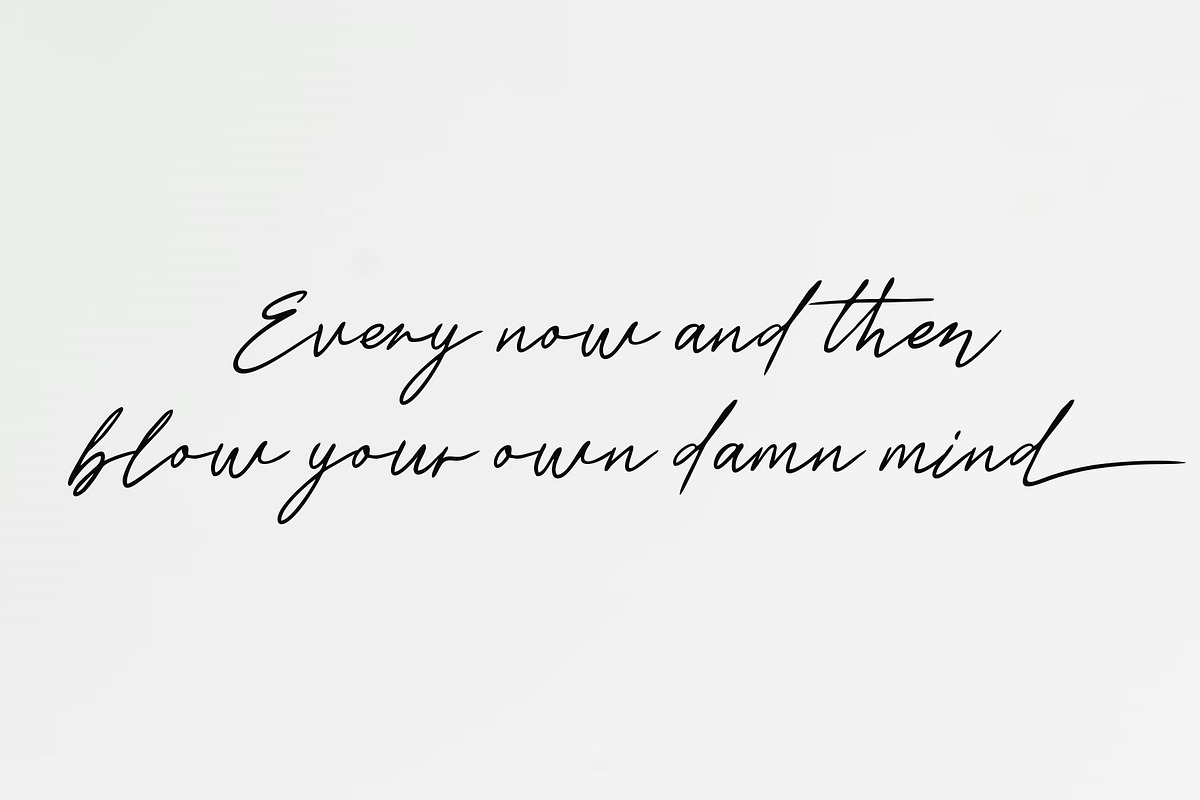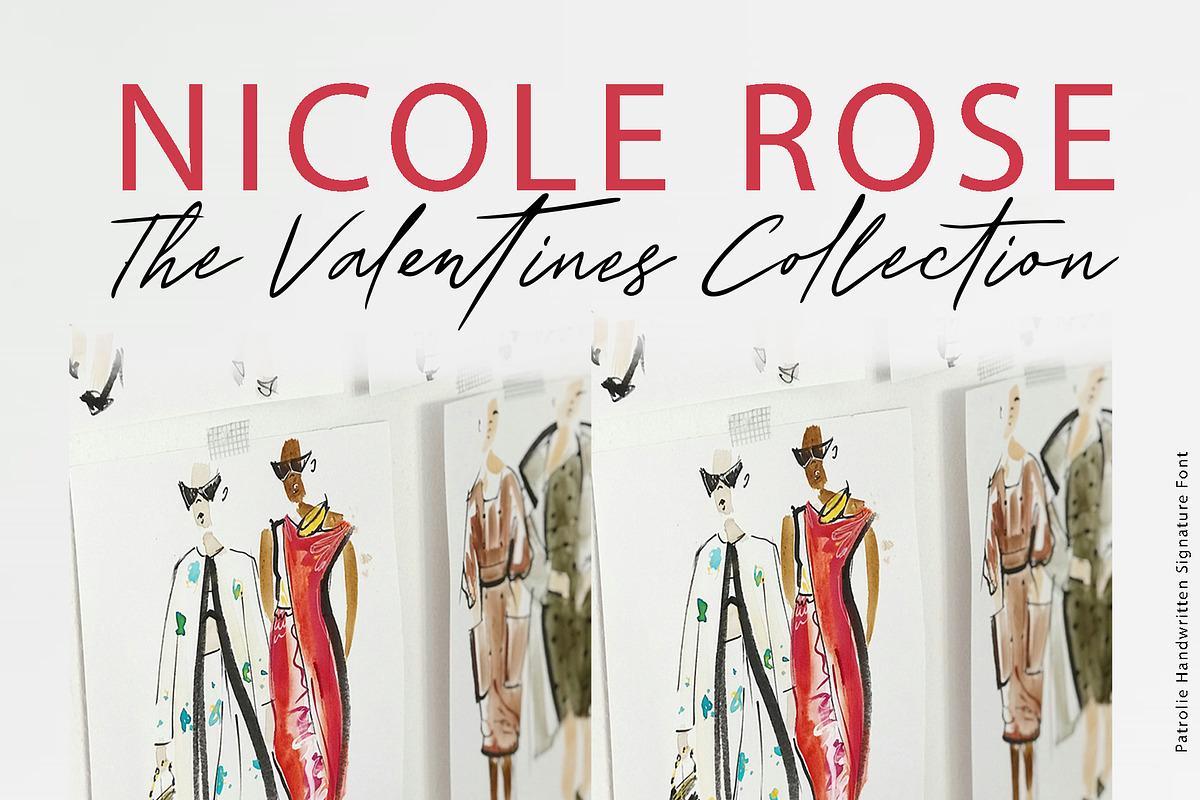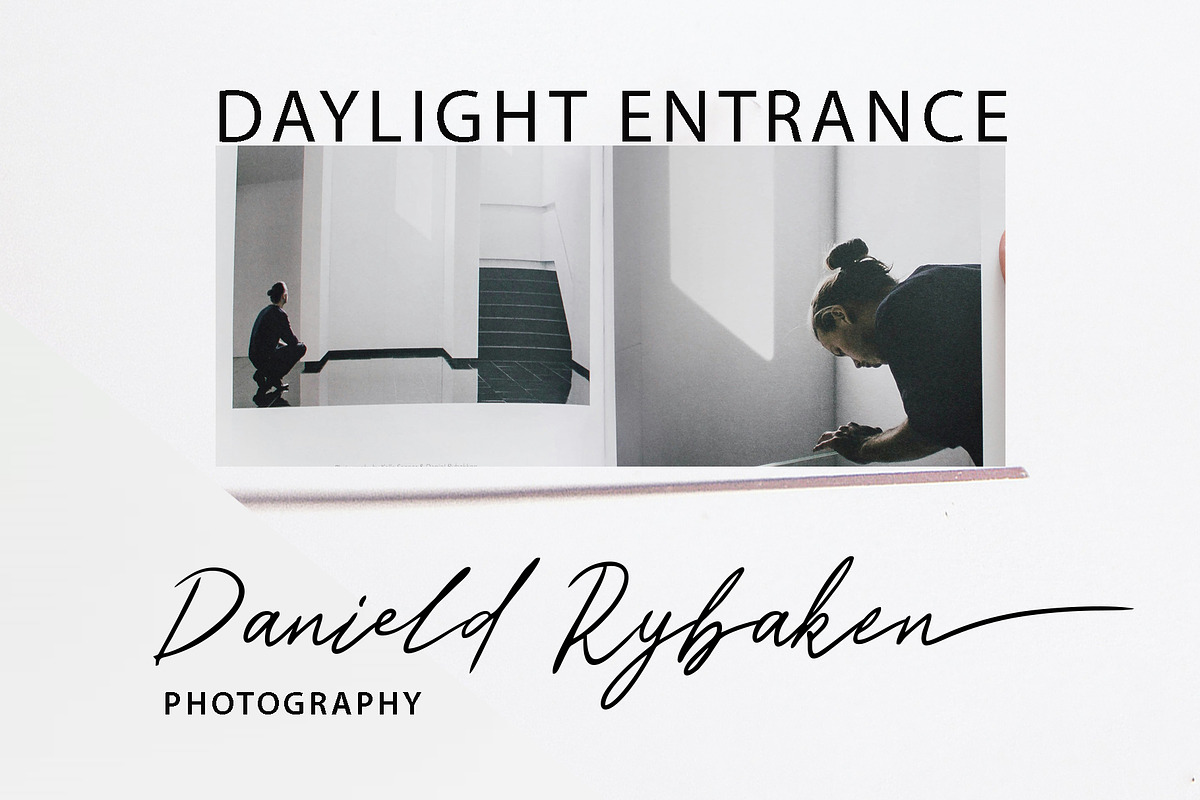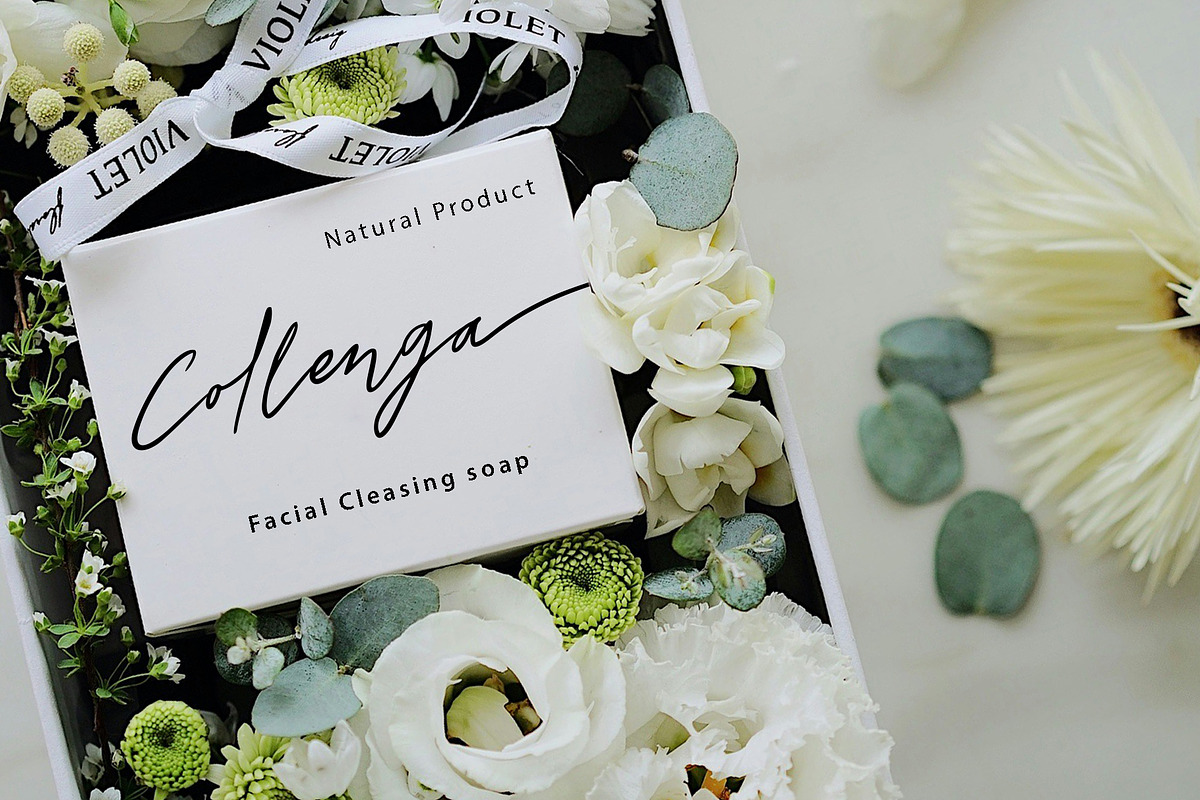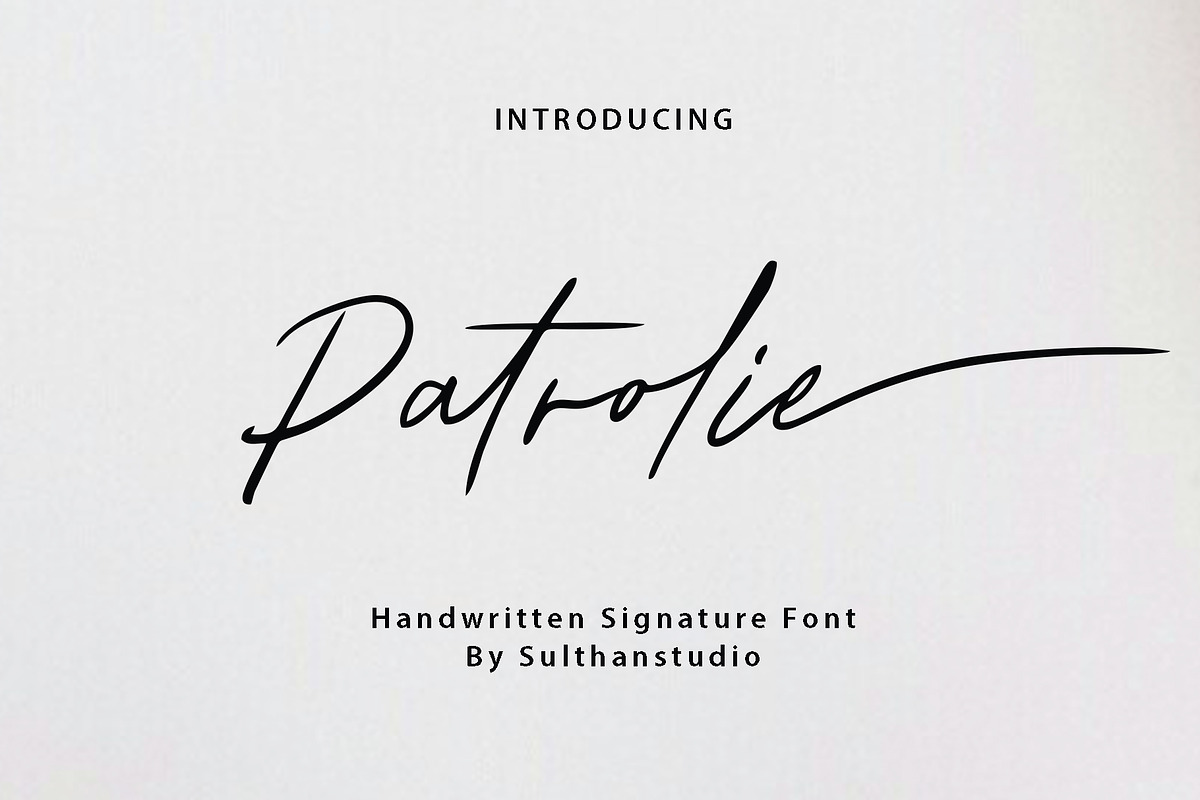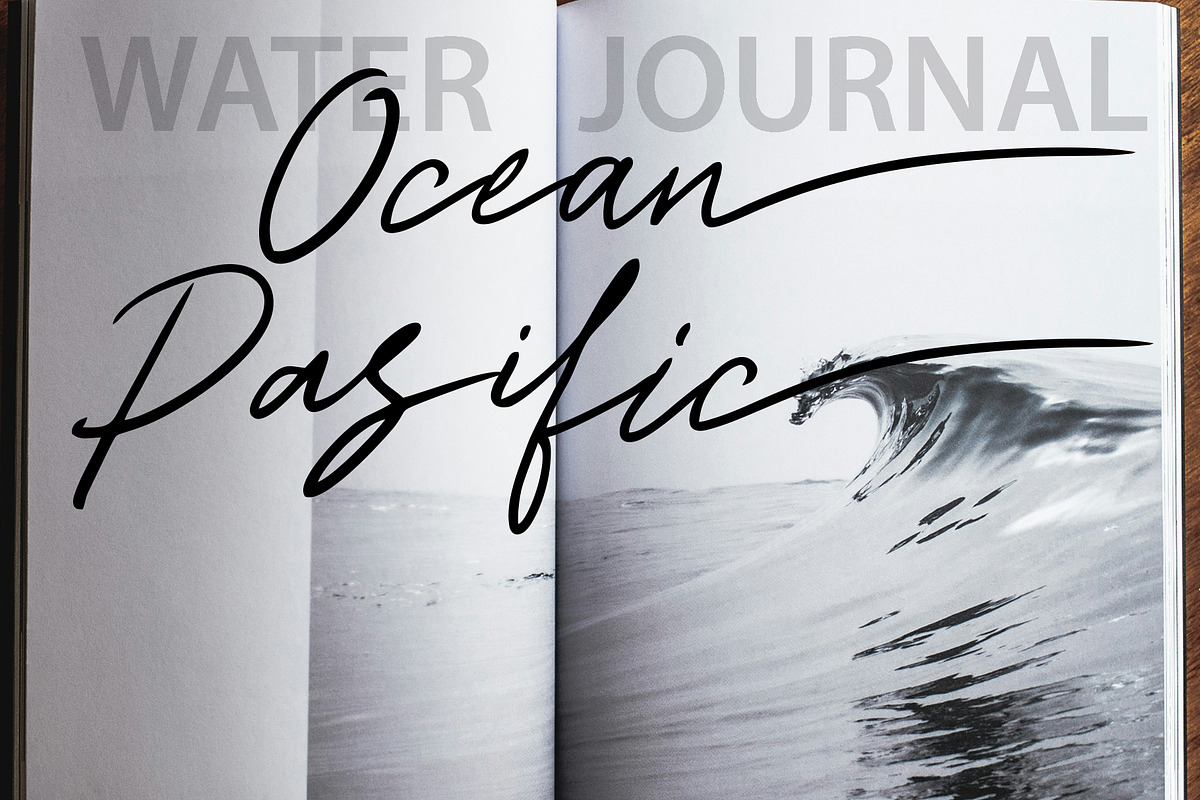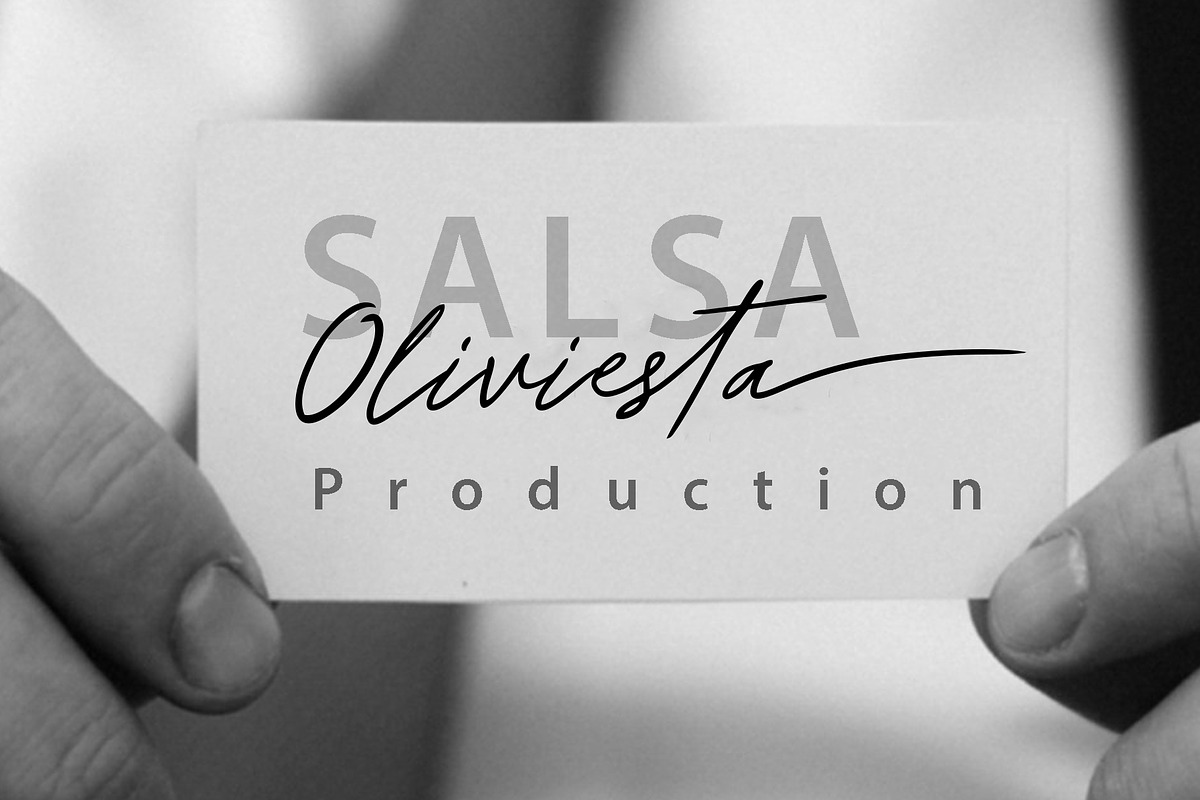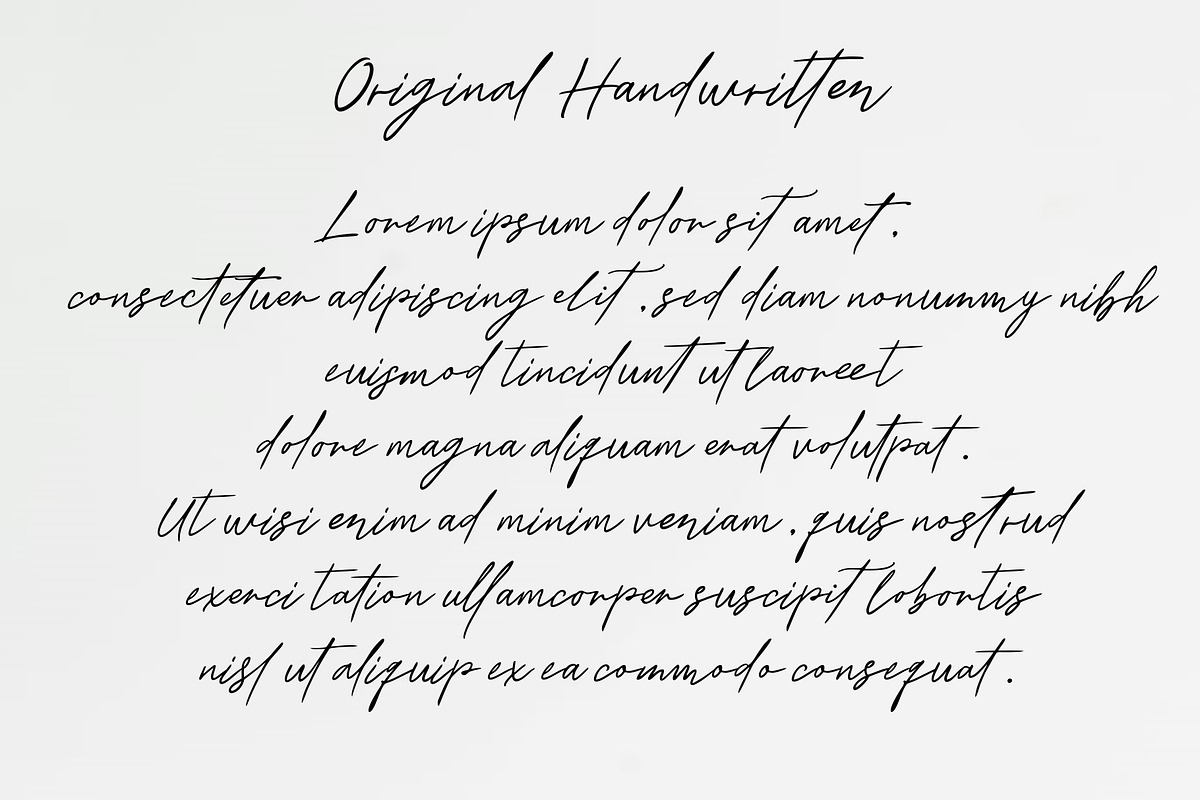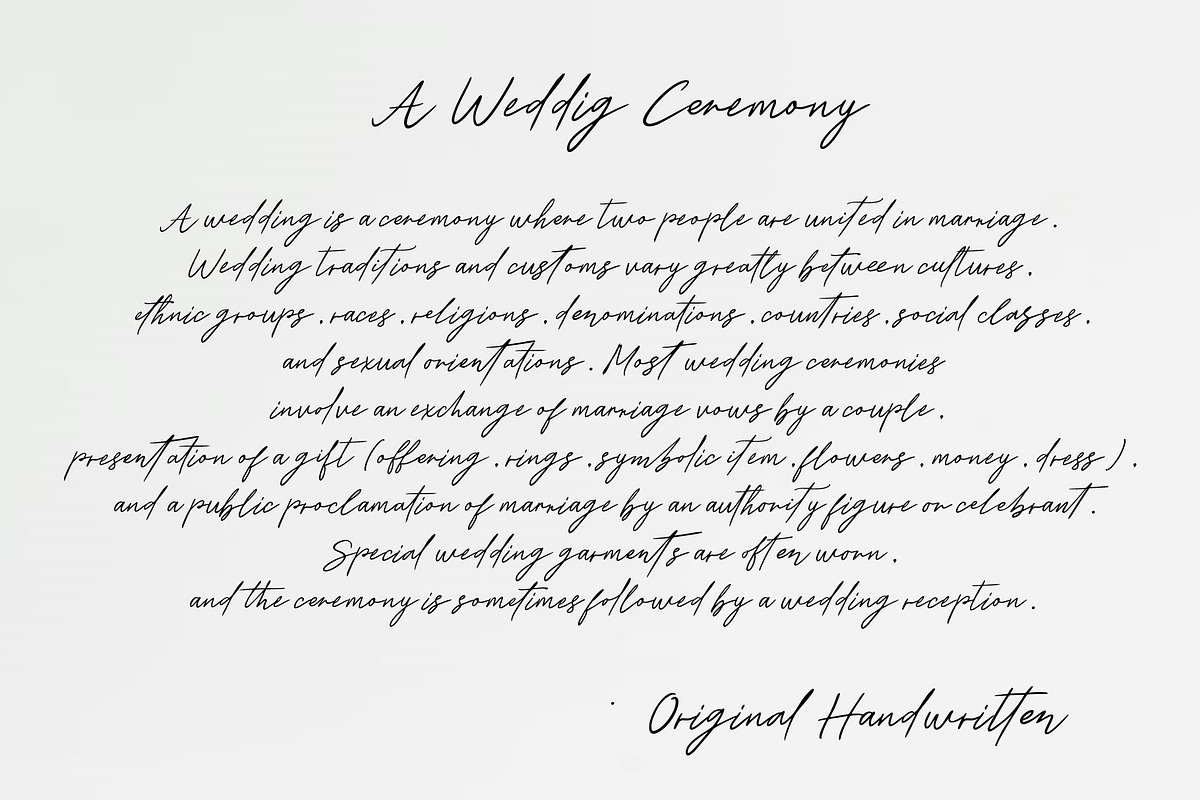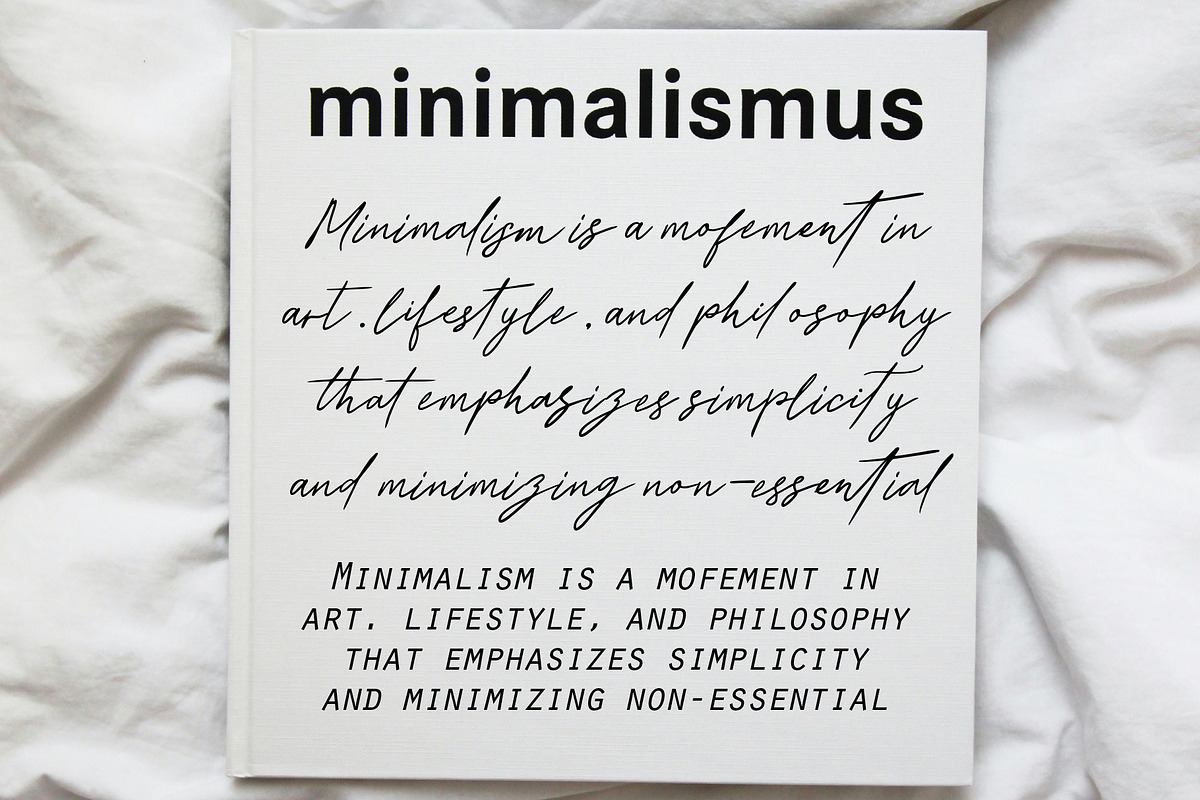
Patrolie signature
Introducing a signature font designed to embrace freedom and originality in every stroke. This creation reflects untouched purity; hand-drawn on paper. Its organic nature reflects beauty, carefully achieved using a calligraphy pen. Perfect for mimicking a written signature, this font is also a shining gem for replicating handwritten paper text. Beyond this application, this font proves versatile for a variety of other uses. Experience the natural charm and sophisticated appeal combined in this beautiful signature font.